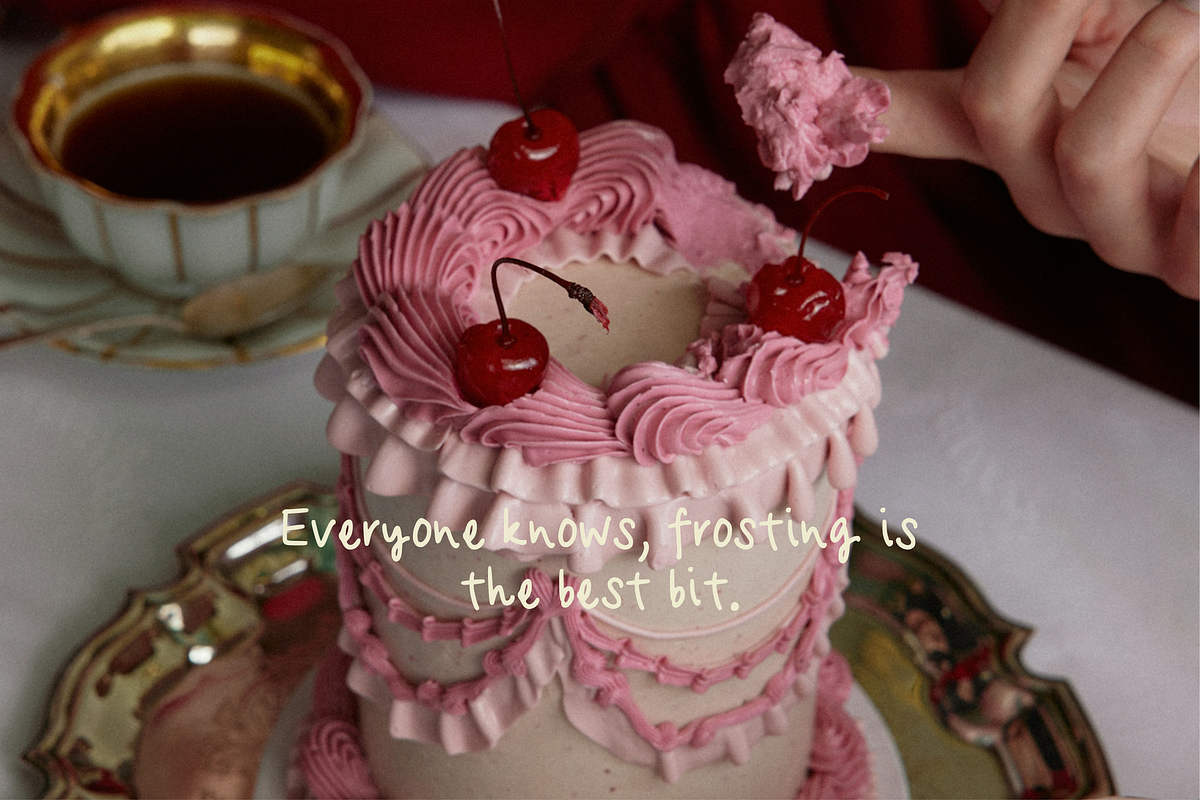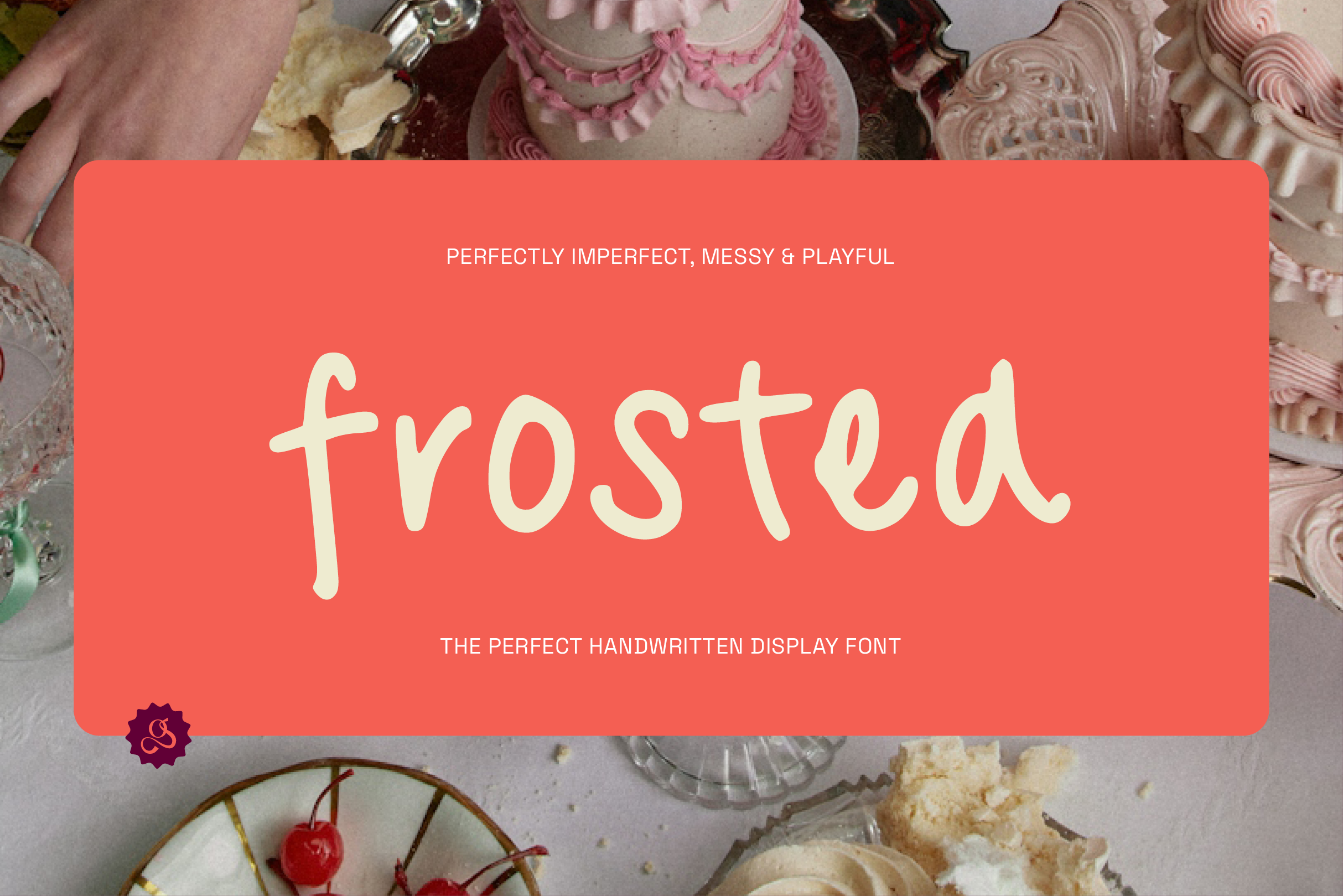
Frosted | Imperfect Handwritten Font
MEET FROSTED
Your new favourite perfectly imperfect handwritten display font.
This font is an ode to scribbles on napkins, doodles in margins and cheeky little love notes. Frosted isn’t about perfection. It’s pure personality. Playful, charming and based on real handwriting which gives it all those quirky little details that make it feel human, alive!
Whether you’re crafting a bold brand identity, whipping up social graphics or adding a personal touch, Frosted delivers that effortlessly cool, perfectly unpolished feel every creative is chasing right now.
What makes FROSTED special?
- A natural handwritten style - like your best friend’s handwriting (but cuter).
- Perfectly imperfect strokes that keep it fun, approachable and personal.
- Works beautifully in logos, social posts, posters, merch and more.
- Playful personality that brings your words to life.